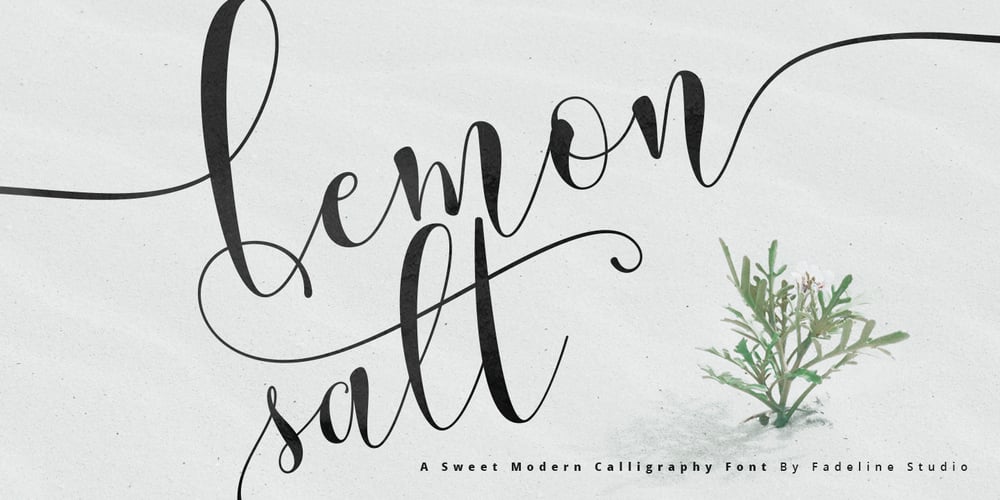
Lemon Salt
Lemon Salt font
Lemon Salt Font Family was designed by Juni Fadil Putra and published by FadeLine Studio. Lemon Salt contains 1 styles and family package options. Lemonsalt Script!This is a handwritten font made with care and sweetness. With upright calligraphy text form and dancing as well as some additional alternate characters will make it more interesting. Thanks!